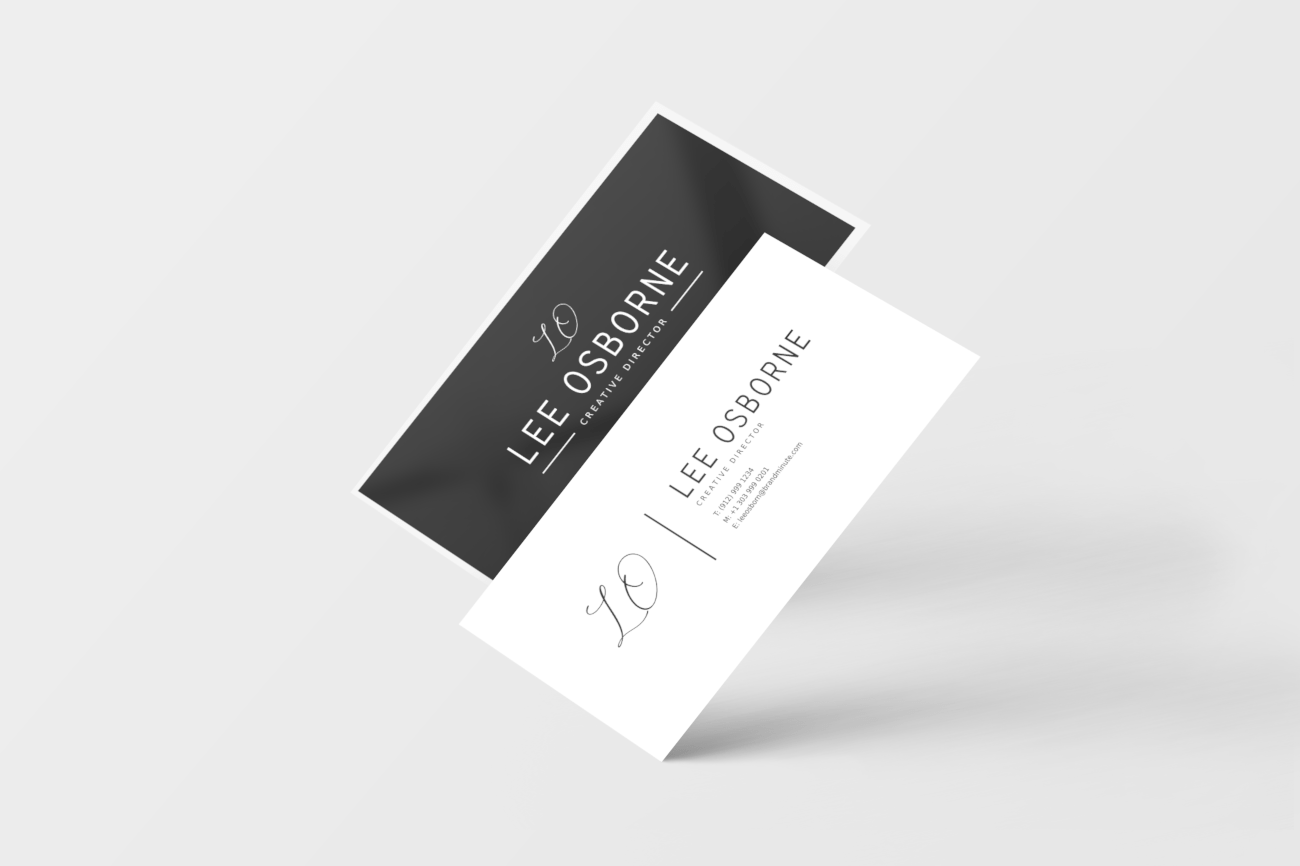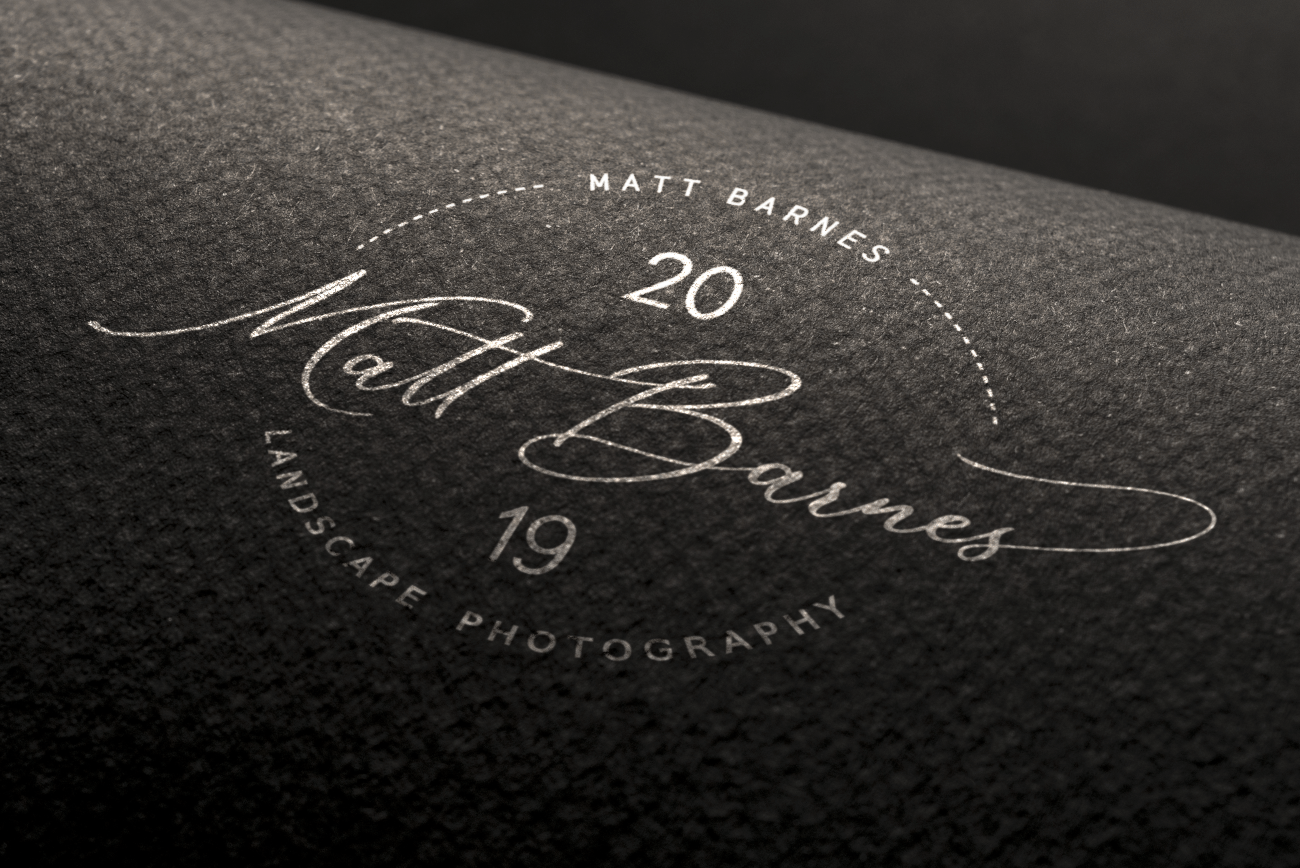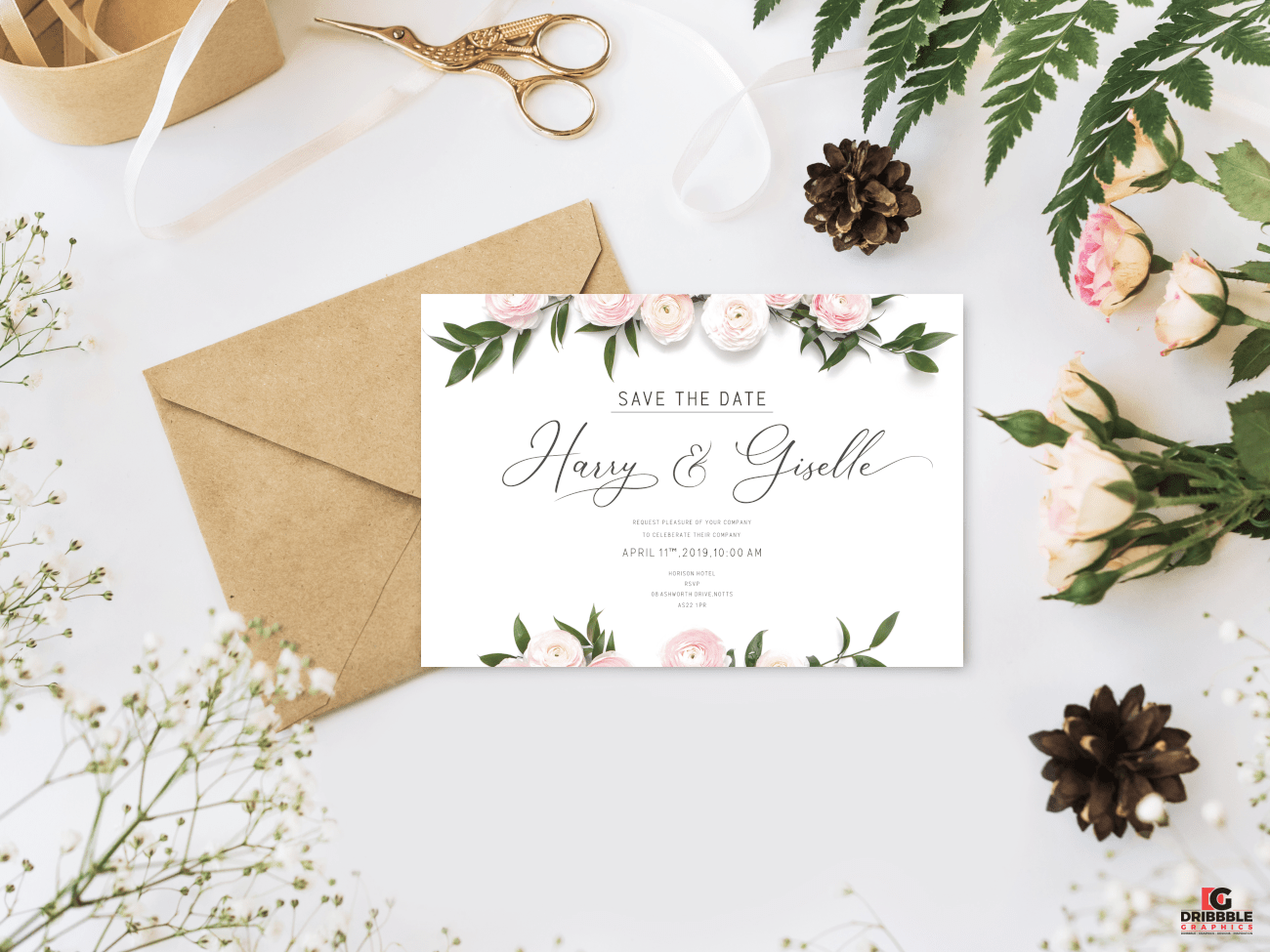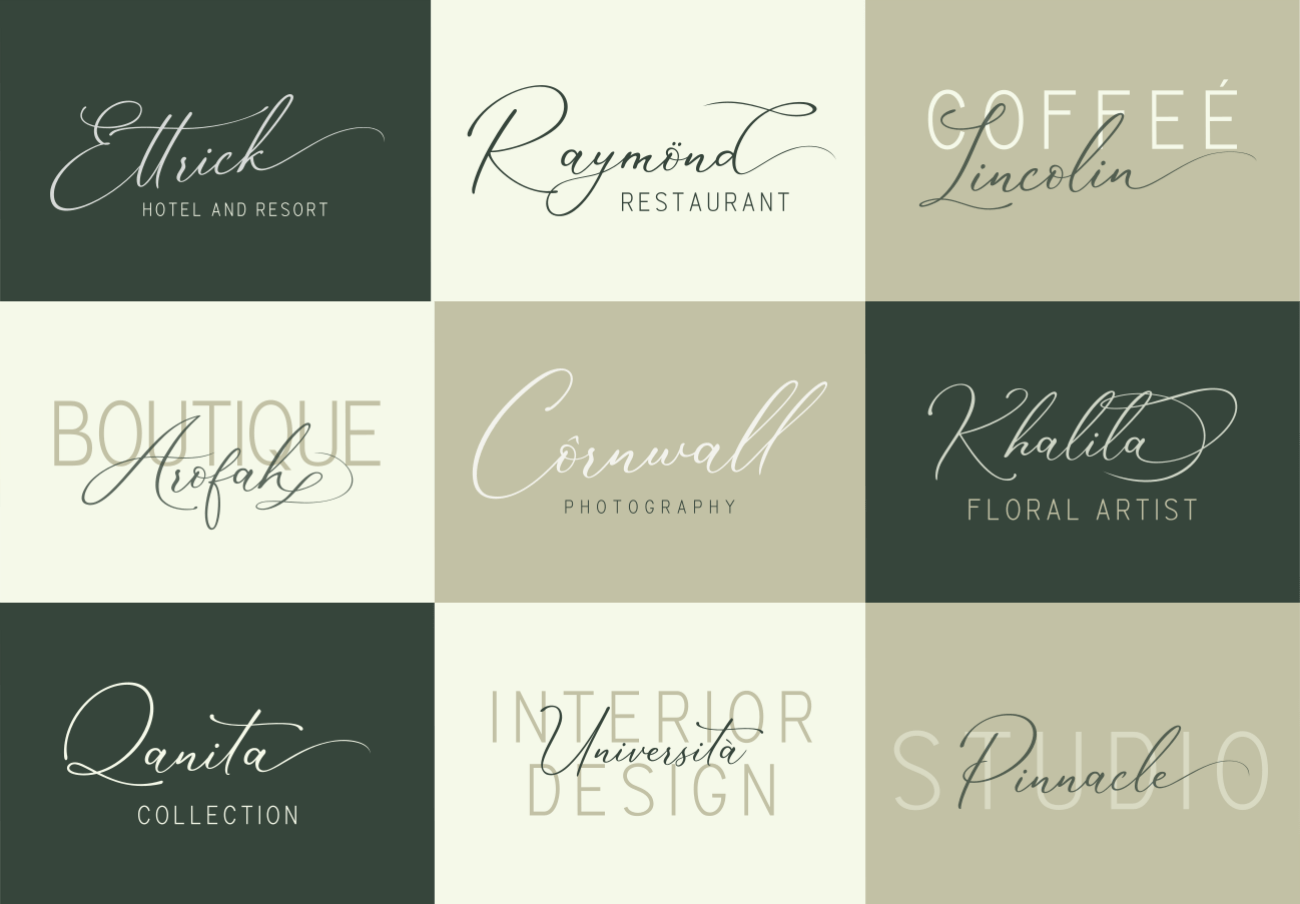
The Marvelous Font Duo
The Marvelous is a stunning pair of beautiful script and sans fonts, which are designed to complement each other with elegant beauty and a contemporary style.
It’s perfect for branding, invitations, business cards, weddings, logo, quotes, product packaging and much more.